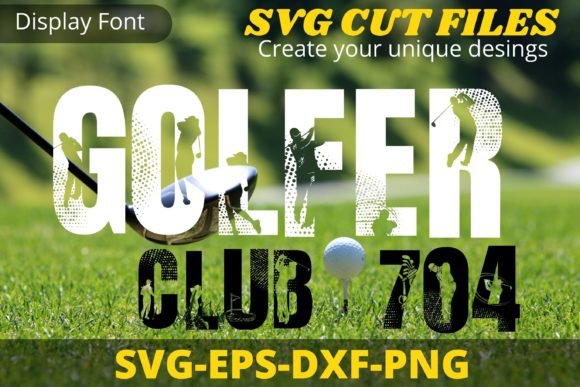
Get Ready to Tee Off with Your Next Design Project!
Have you ever found yourself in a creative rut, staring at a blank canvas, and wishing for a spark of inspiration to hit your next project out of the park? That’s exactly what happened to me last week, and I’m thrilled to share with you the solution that got my creative juices flowing – a font so cool, so versatile, and so full of character that it’s guaranteed to elevate your designs: Golf Font.
This awesome font is not just a pretty face; it’s a valuable tool for designers looking to add a unique touch to their work. Whether you’re crafting a logo, branding, or ad campaign, Golf Font is the perfect addition to take your designs to the next level. With its wide range of applications, from blog posts to invitations, this font is sure to become your go-to companion for all your creative endeavors.
- Unique Characteristics: Golf Font features a unique blend of modern and classic elements, with a focus on legibility and readability, making it ideal for use in golf course signage, scorecards, and other golf-related materials.
Golf Font Review
Golf Font, a display font designed to evoke the classic feel of golf scorecards. At first glance, I was drawn to its unique style, which does indeed capture the essence of the sport. Here are a few things that stand out:
- ✨ The font’s vintage feel is undeniably charming and would be a great fit for any golf-themed project.
- ✨ The bold, sans-serif style makes it easy to read, even at small font sizes.
- ✨ The font’s uniqueness will definitely help your design stand out from the crowd.
- ⚠️ The font may be too bold or overwhelming for some projects, so be cautious when using it for large blocks of text.
- ⚠️ The font’s uniqueness can also make it difficult to pair with other fonts, so you may need to get creative with your typography choices.
- ⚠️ The font’s vintage feel may not be to everyone’s taste, so be prepared for potential feedback or criticism.
Overall, I think Golf Font is a solid choice for any golf-themed project or anyone looking for a unique display font. While it may have some limitations, its charm and uniqueness make it a great addition to any designer’s toolkit.
Tips for Getting the Most Out of Golf Font
Use Golf Font for titles, headings, and other attention-grabbing text elements.
Combine Golf Font with other fonts to create a unique and eye-catching design.
Experiment with different font sizes, colors, and styles to add depth and interest to your design.
Golf Font is perfect for:
Designing golf-themed materials, such as scorecards, flyers, and posters.
Creating sports-themed designs, such as jerseys, hats, and other apparel.
Adding a touch of elegance and sophistication to your designs.